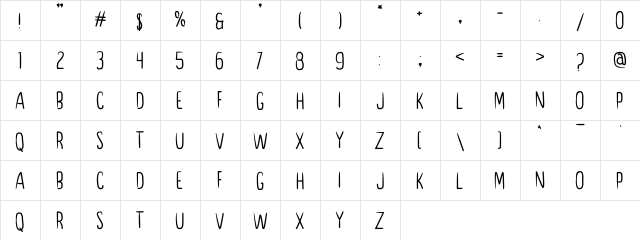
Perdana Regular
Design Context for Perdana Typeface
Perdana takes a measured approach to typography — its balanced proportions and neutral character make it a reliable workhorse for both digital and print work.